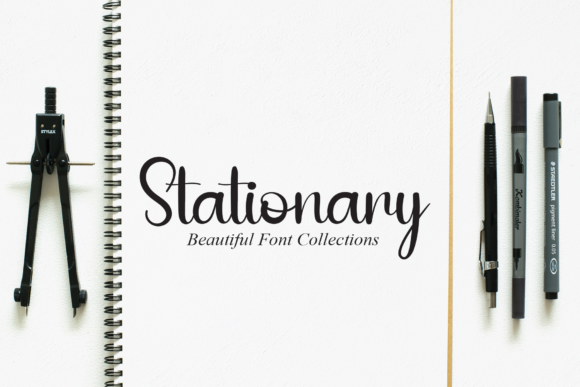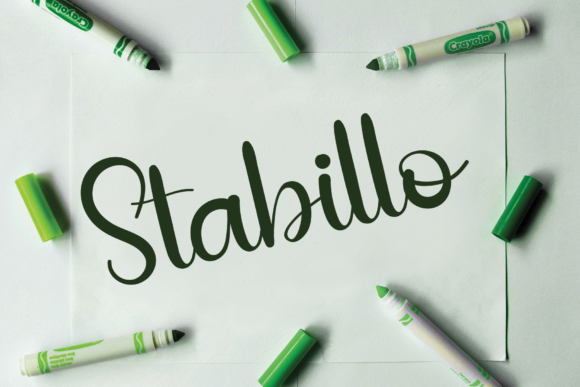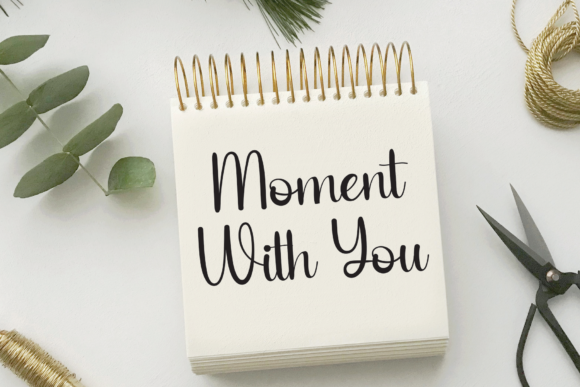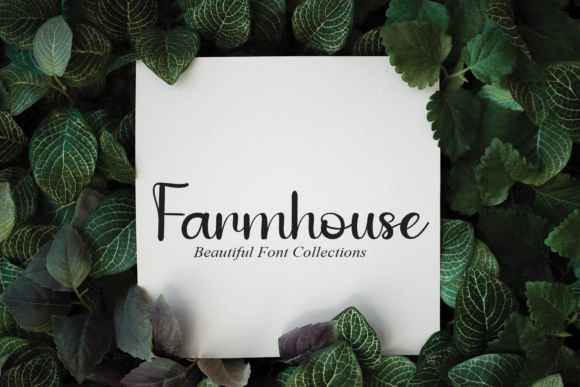
William Font
About William Font
William is a stylish and dainty script font that brings a unique charm to any design project. Script fonts like William are known for their fluidity and elegance, often mimicking the style of handwritten calligraphy. This makes them a popular choice for a variety of projects that require a touch of sophistication and personalization.
Whether you’re working on logos, branding projects, labels, photography, watermarks, special events, or any other design project, William can add a beautiful script taste to your designs. Its stylish and dainty nature makes it suitable for both modern and vintage aesthetics, providing a timeless appeal.
In the world of script fonts, William stands out for its unique style. It manages to strike a balance between being stylish and dainty, making it a great choice for projects that require a delicate touch. Despite its dainty nature, William is robust enough to be used in a variety of applications, from small labels to large signage.
In conclusion, William is more than just a stylish and dainty script font. It’s a versatile design tool that can bring a unique, personal touch to your projects. Whether you’re a seasoned designer or just starting out, William is a script font worth considering. Its combination of style, versatility, and legibility make it a standout choice in the world of script fonts. So, if you’re looking for a script font that can add a beautiful script taste to your projects, William might just be the perfect fit.